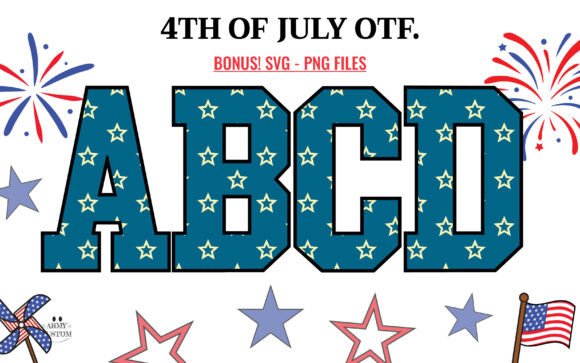
Introducing the American 4th of July Font: A Patriotic Celebration in Typography
As the United States prepares to celebrate its Independence Day on the 4th of July, designers and crafters are on the lookout for creative ways to infuse their projects with a touch of patriotism. If you’re searching for a font that embodies the spirit of American celebrations, look no further than the American 4th of July Font. This uniquely designed font is a tribute to the Land of the Free, capturing the essence of Memorial Day Americana in every curve and line.
A Font that Embodies American Aesthetics
The American 4th of July Font is inspired by the heart of the United States, making it the perfect addition to your creative projects. Whether you’re designing patriotic-themed crafts, creating festive party invitations, or simply looking to add a touch of American charm to your designs, this font is sure to deliver. Its distinctive style and nostalgic feel make it an excellent choice for anyone looking to evoke a sense of patriotism and national pride.
Key Features of the American 4th of July Font
- Patriotic Design: The American 4th of July Font is designed to capture the essence of American celebrations, making it perfect for 4th of July, Memorial Day, and other patriotic-themed projects.
- Unique Style: With its distinctive curves and lines, this font embodies the charm and spirit of American aesthetics, setting it apart from more generic fonts.
Using the American 4th of July Font in Your Projects
The American 4th of July Font is more than just a font – it’s a celebration of American patriotism and creativity. Whether you’re a designer or a crafter, this uniquely designed font is sure to infuse your projects with a touch of American charm and spirit. With its compatibility with popular design software and cutting machines, it’s easy to get started and bring your patriotic-themed projects to life.